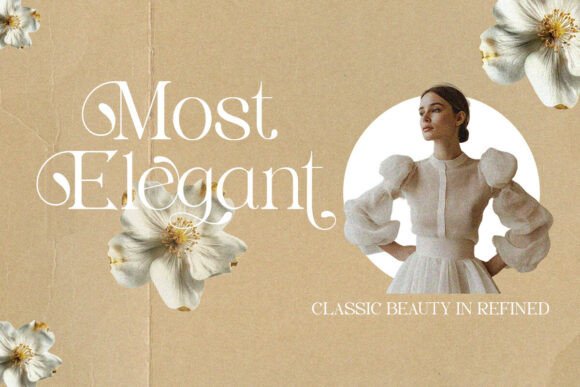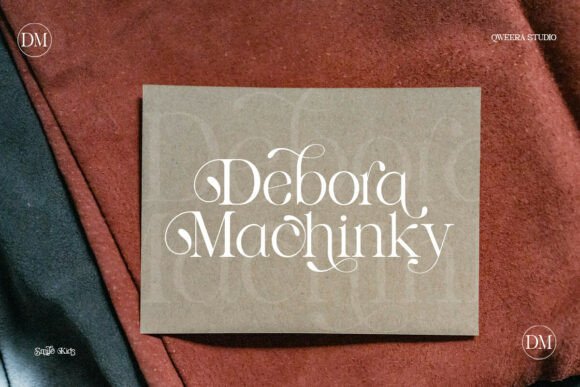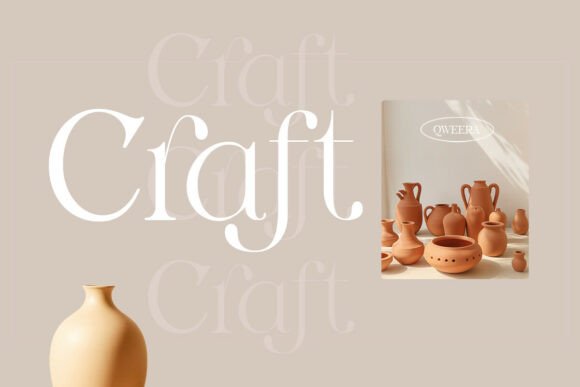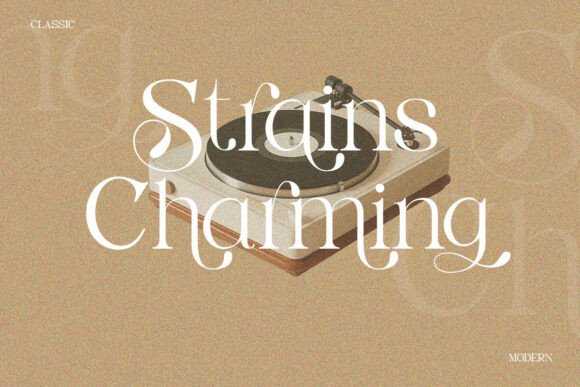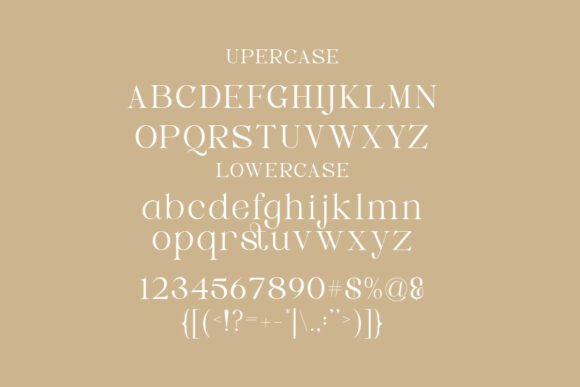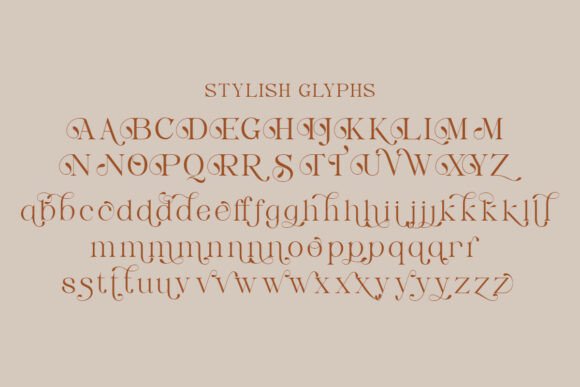
Introduction to Smile Kids Font
Have you ever stared at a blank page, your creative project stalled, searching for the perfect font to bring your vision to life? For many designers, finding the right font can be a daunting task, especially when it comes to creating high-end branding, editorial design, or luxury packaging that demands both sophistication and a touch of whimsy.
This is where the Smile Kids Font comes in – a modern elegant luxury serif font that perfectly blends professionalism and playfulness. Its clean lines, stylish alternates, and ligatures make it an ideal design resource for designers seeking to add a touch of creativity and individuality to their work.
With the Smile Kids Font, you can create designs that radiate timeless elegance, from corporate branding to editorial masterpieces, all with a polished and engaging look that’s sure to leave a lasting impression.
Key Features of Smile Kids Font
- High-quality, fun, and playful design ideal for creative projects targeting children.
- Smile Kids Font is available in a single size, making it easy to use across different design applications.
- Features a high resolution, ensuring crisp and clear typography in digital and print materials.
Honest Review: Smile Kids Font
I recently came across the Smile Kids Font and I’m excited to share my thoughts on this design resource. Overall, I’m impressed with the high quality and versatility of this font.
- ✨ The font’s playful and whimsical style is perfect for a variety of creative projects, from children’s book illustrations to nursery decor.
- ⚠️ The font may not be suitable for formal or professional projects, due to its playful nature.
Overall, I’m a fan of the Smile Kids Font. Its high quality and free download make it a valuable resource for designers working on creative projects. While it may not be suitable for all projects, it’s an excellent choice for those looking for a fun and playful font.
Common Use Cases for Smile Kids Font
The Smile Kids Font is ideal for children’s educational materials, party invitations, and social media graphics. Its playful and whimsical design makes it perfect for projects that require a fun and youthful tone.
Yes, Smile Kids Font has a transparent background, making it perfect for creative projects that require a seamless integration with images or other design elements. This feature allows for a clean and professional look in your design work.
Q: Is Smile Kids Font a high-quality font?
Yes, Smile Kids Font is designed to meet high standards of quality and readability. It’s carefully crafted to ensure that it displays well in various font sizes and resolutions. Whether you’re working on a small project or a large-scale design, Smile Kids Font is an excellent choice.